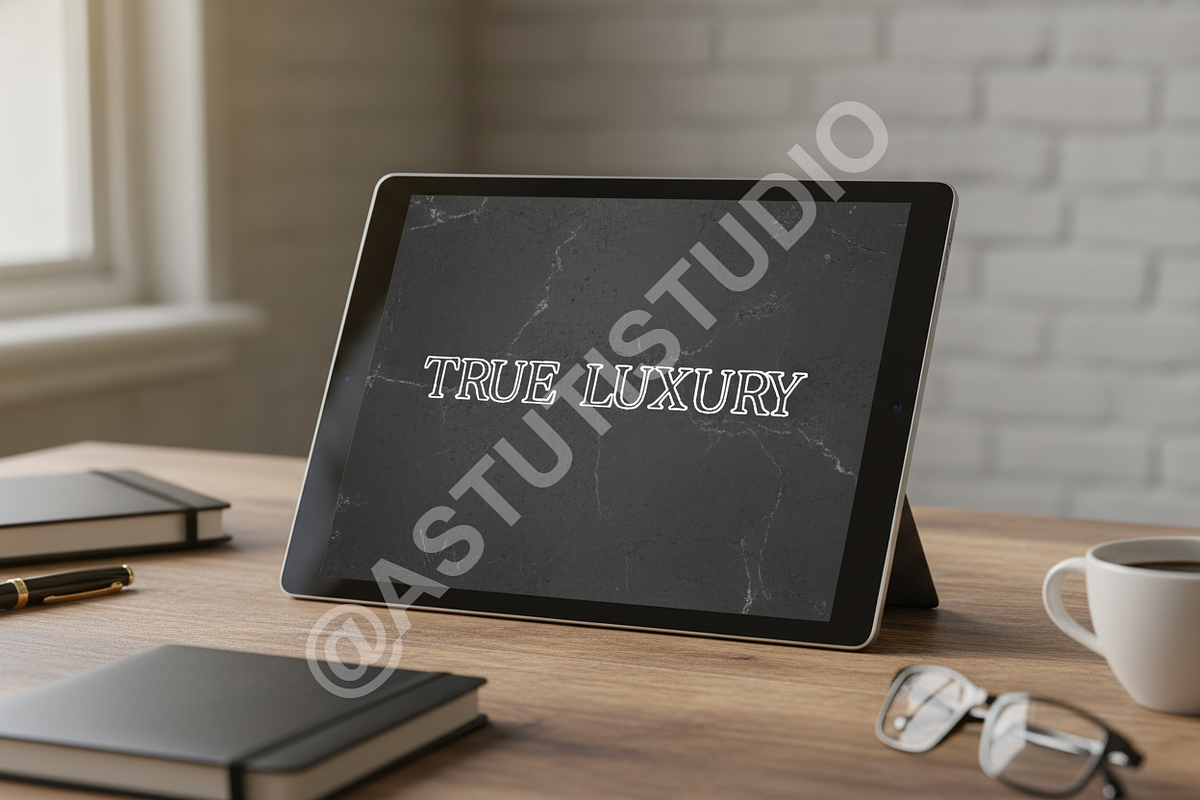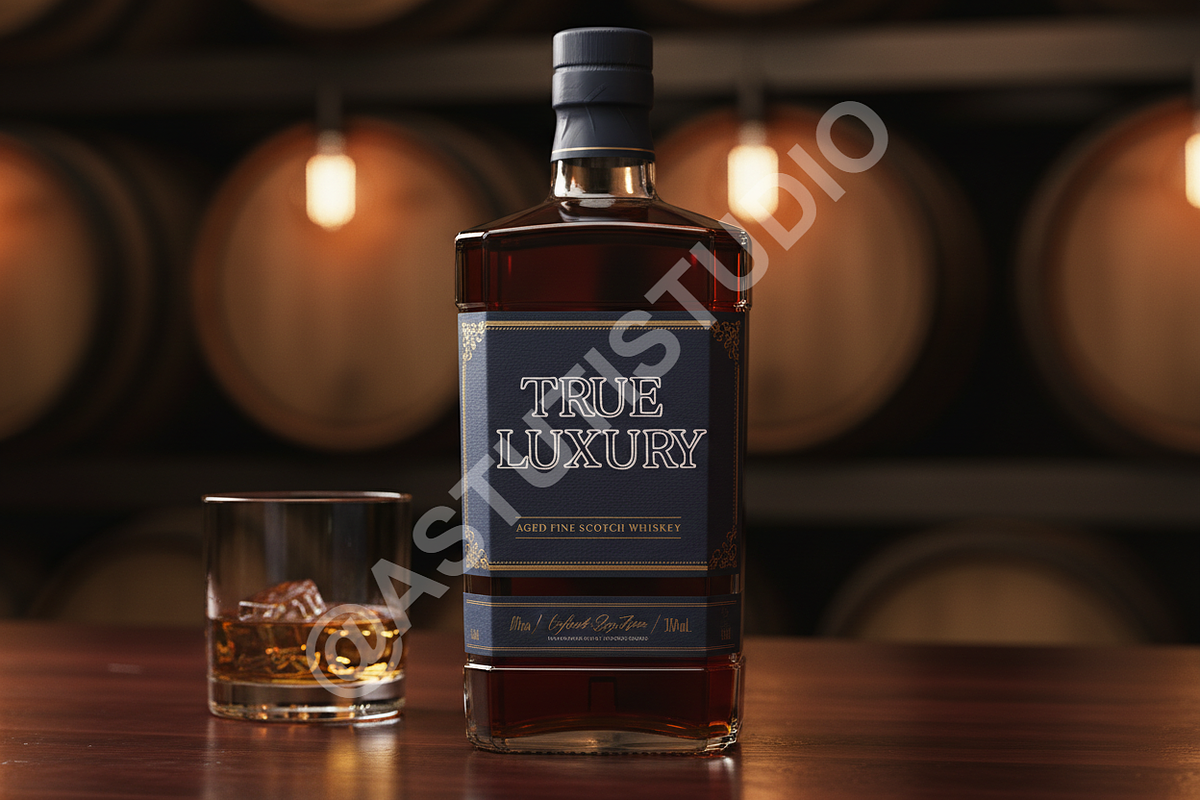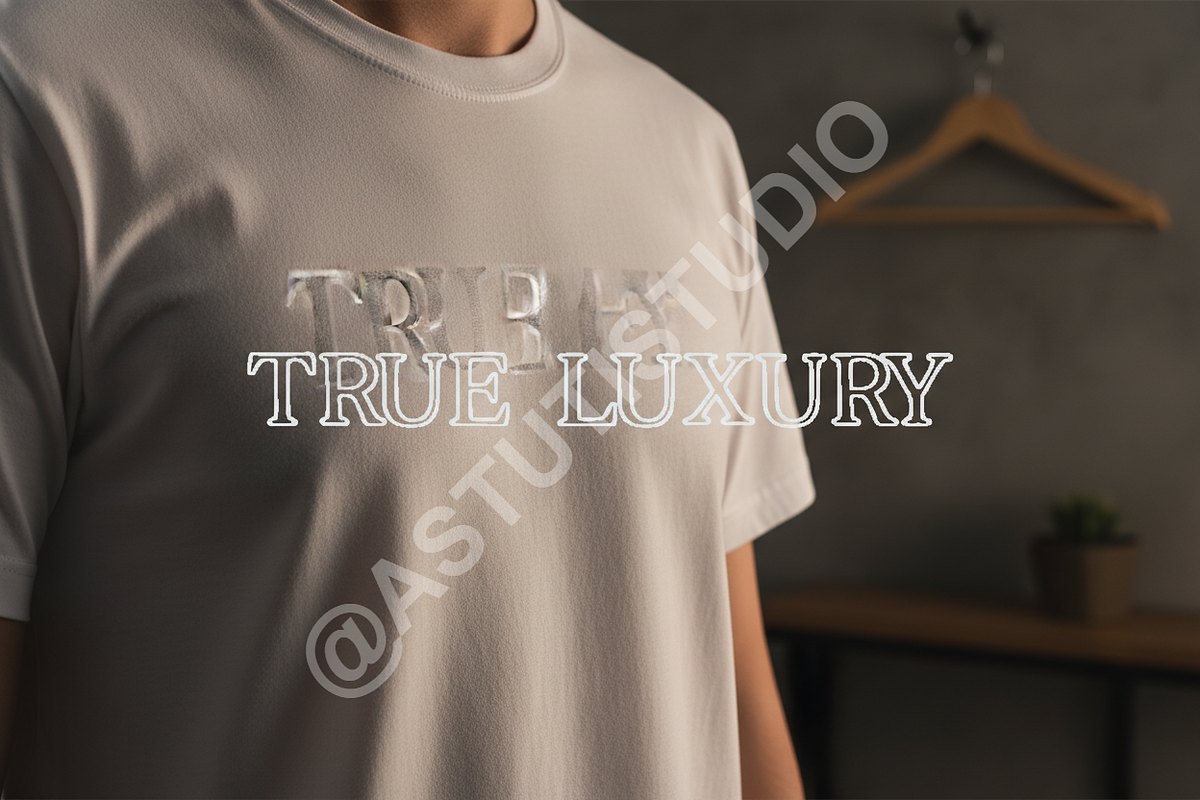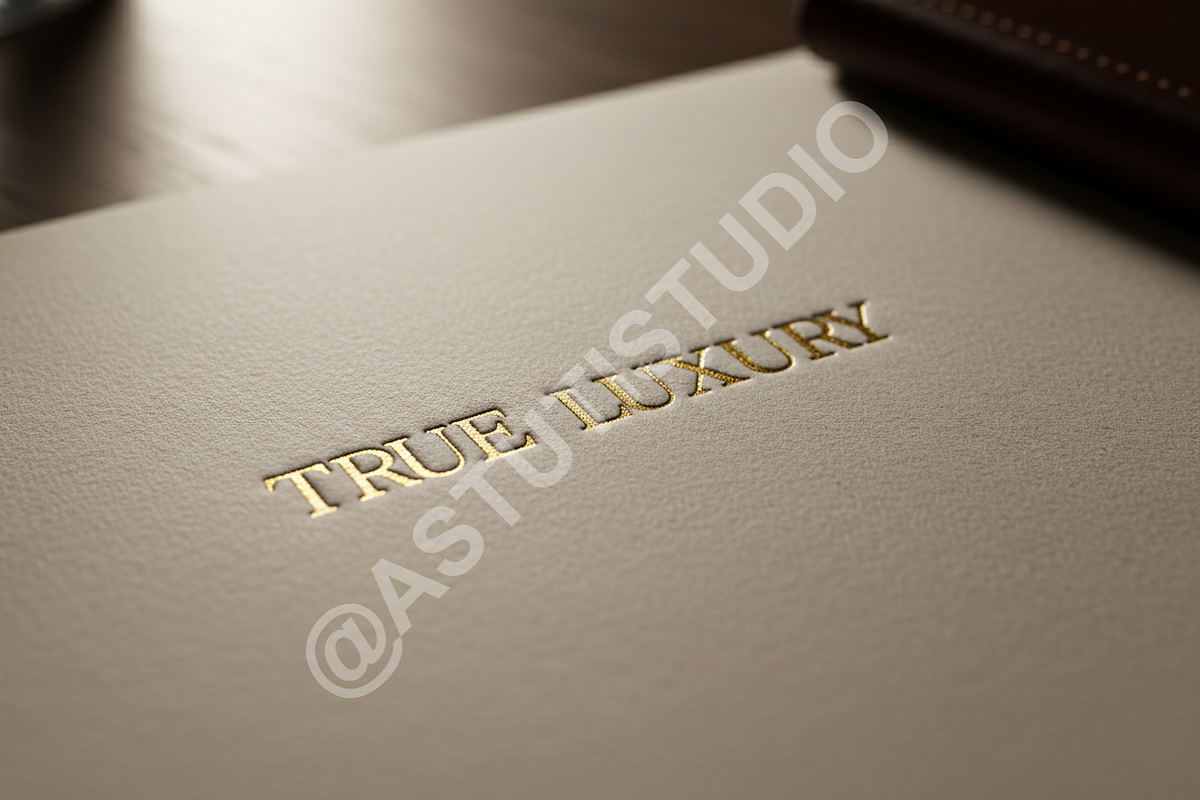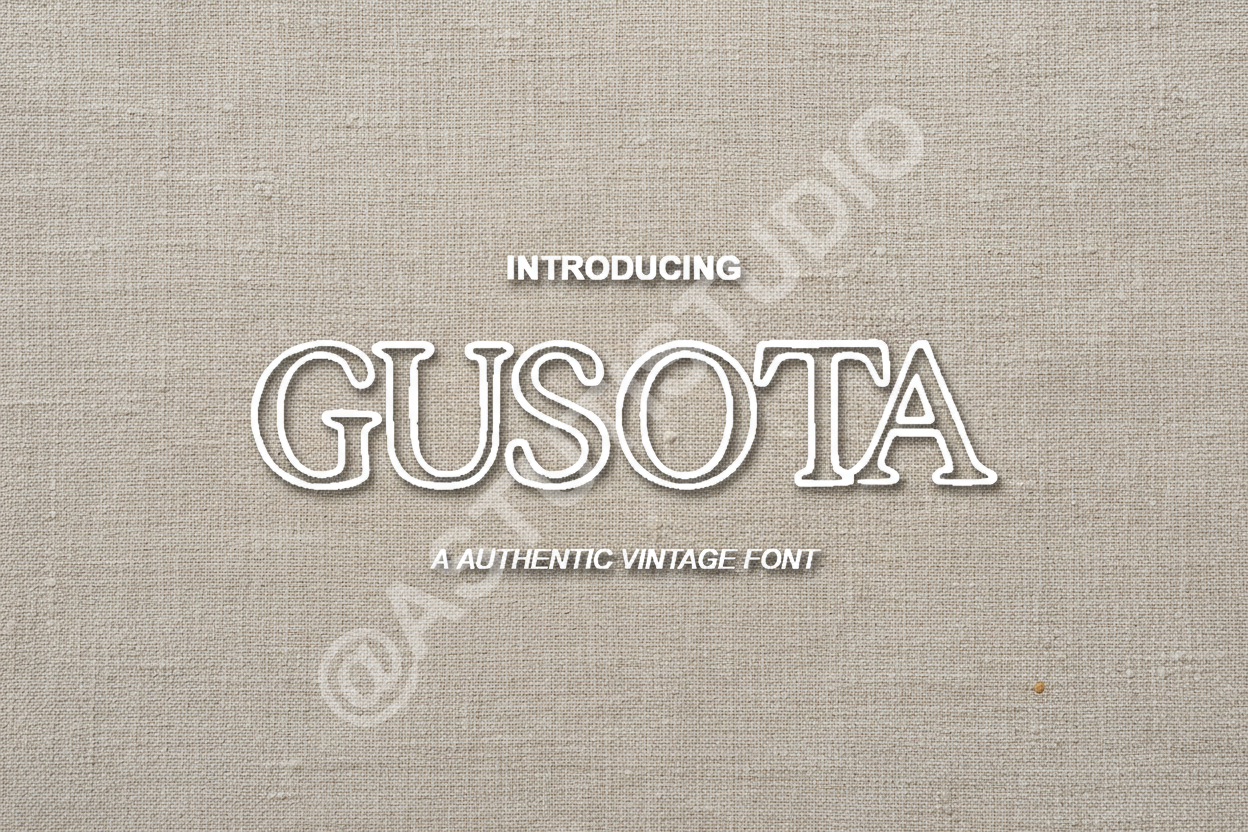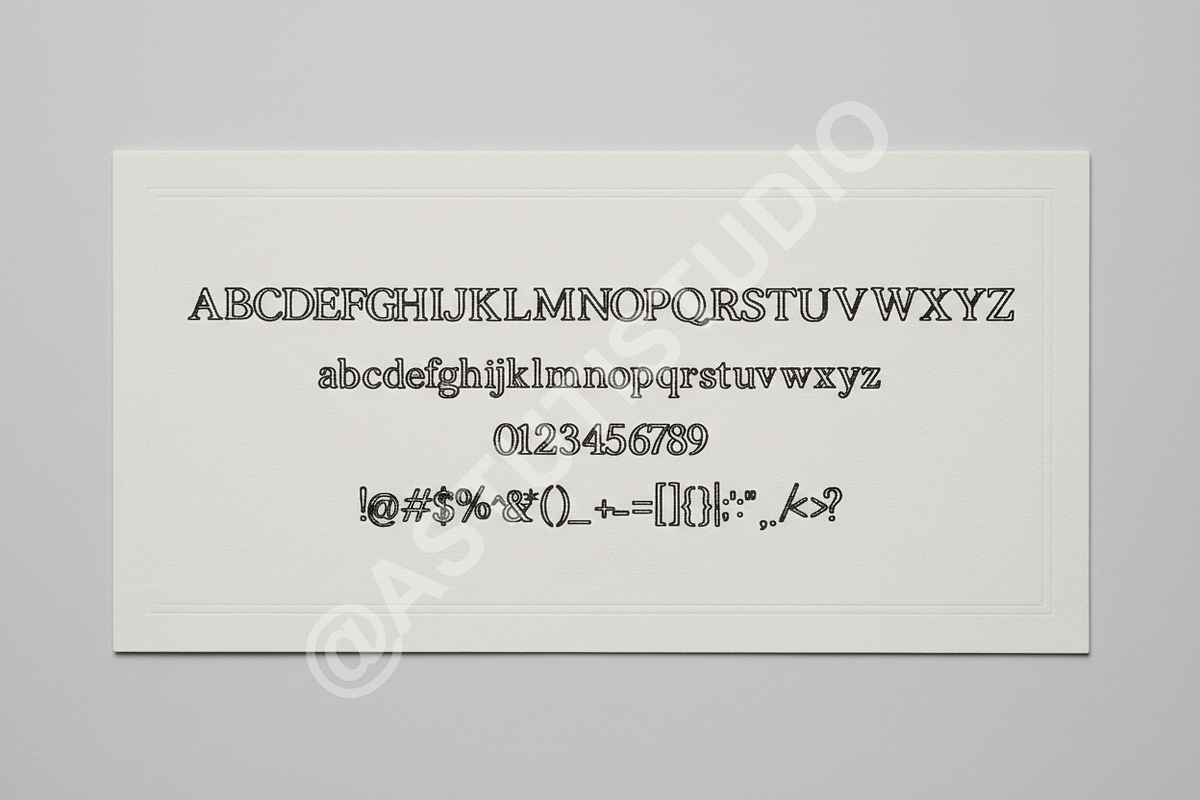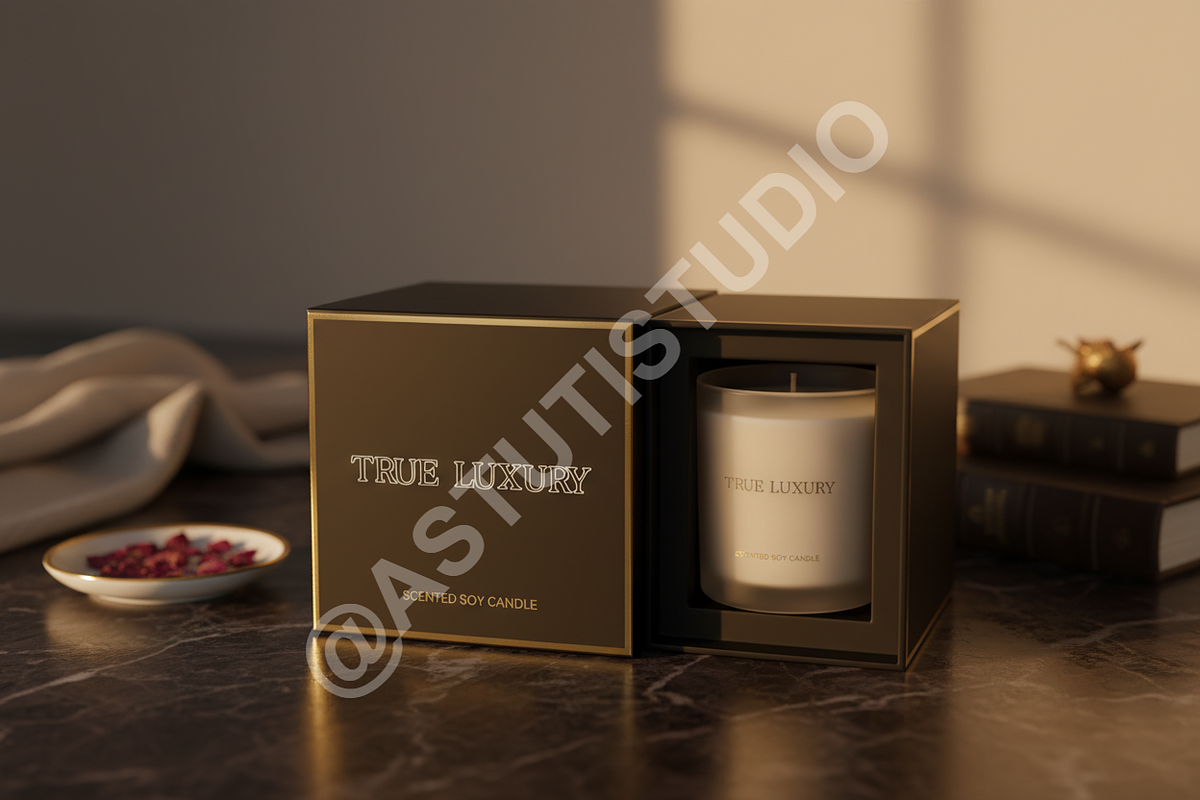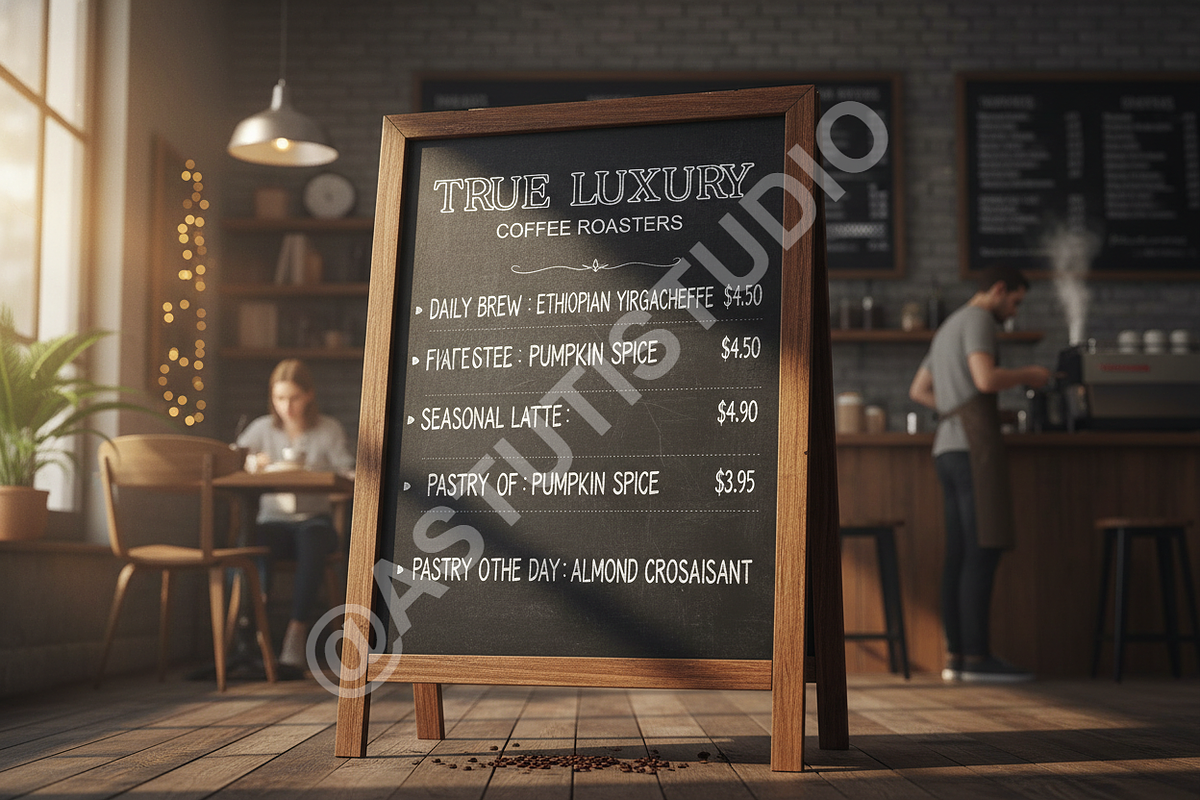
Gusota - Elegant Serif Typeface
INTRODUCTION Gusota is a sophisticated serif typeface meticulously crafted for high-end aesthetics. Balancing classic proportions with contemporary refinement, this font exudes an air of timeless elegance, making it an essential tool for designers seeking a premium studio finish.
APPLICATIONS Designed with versatility in mind, Gusota is the perfect choice for luxury branding, editorial layouts, high-fashion magazine spreads, and refined social media content. Whether you are creating a minimalist logo or a detailed print advertisement, Gusota provides a polished and professional touch to every project.
- Elegant ligatures and clean letterforms
- Optimized kerning for professional readability
- Extensive multilingual support
- Precise hairline details for high-resolution displays